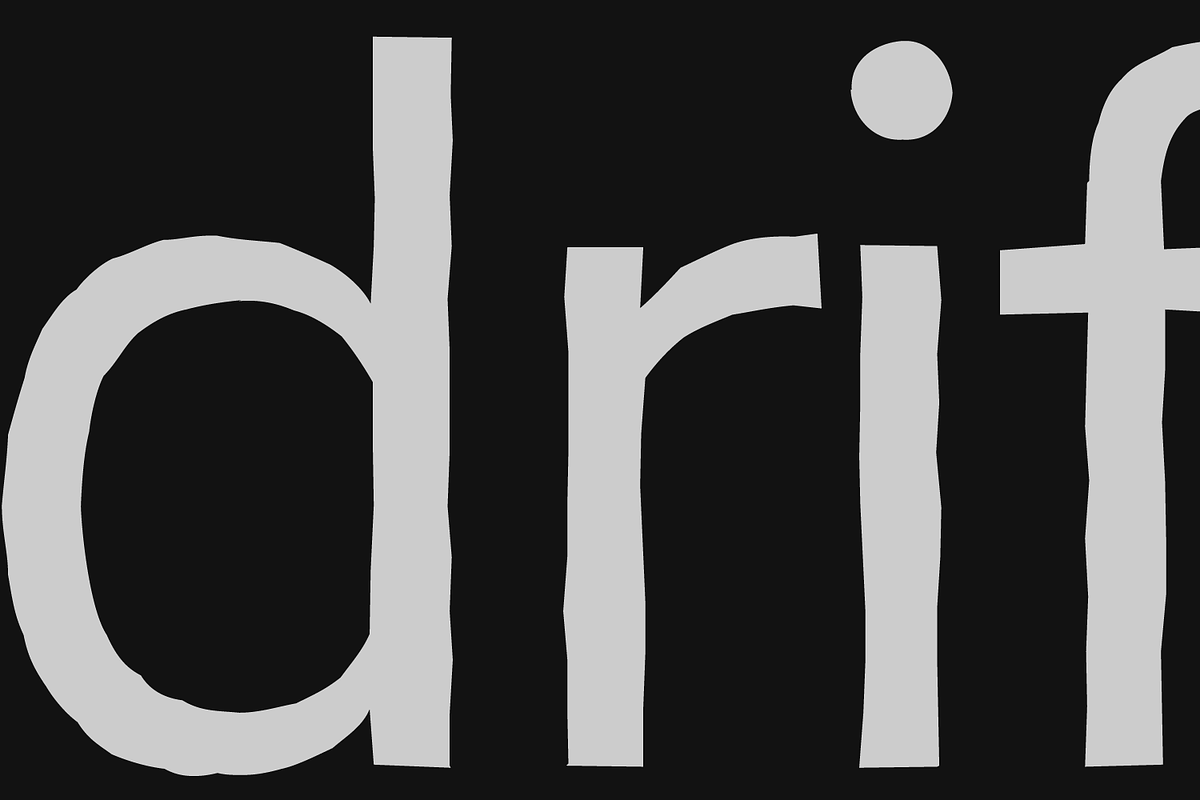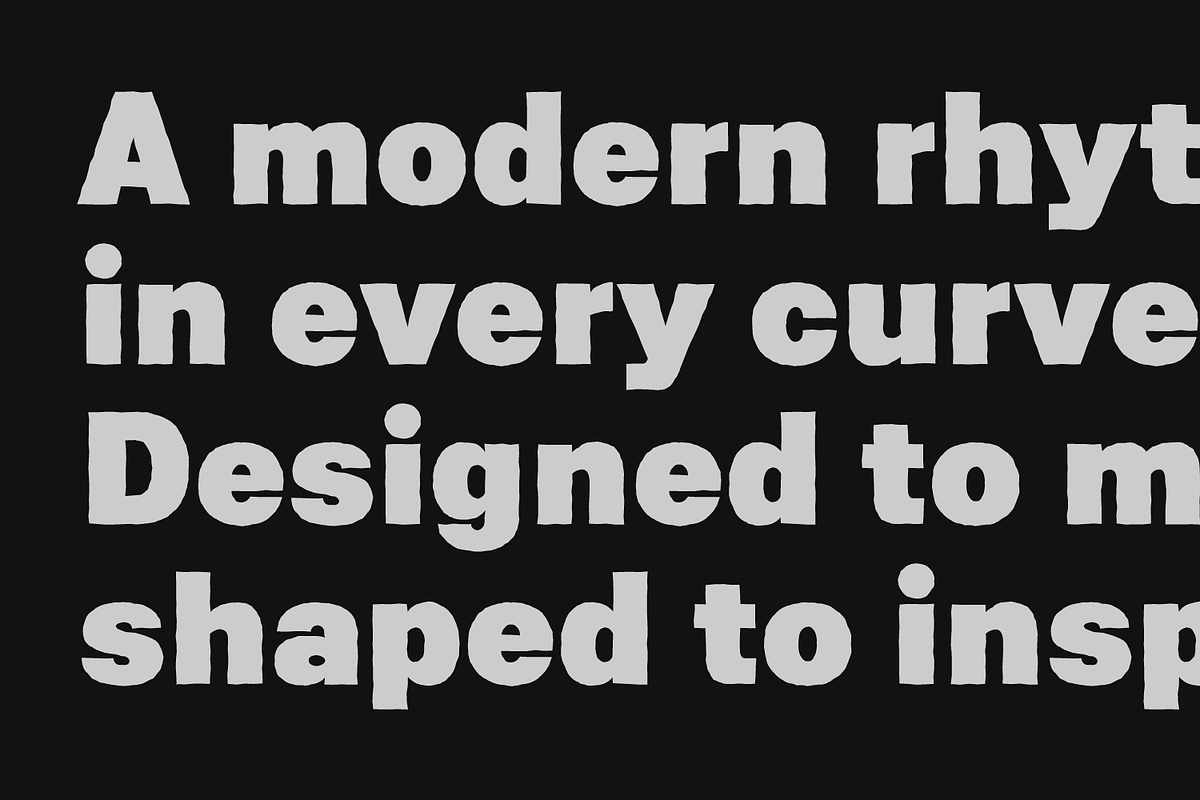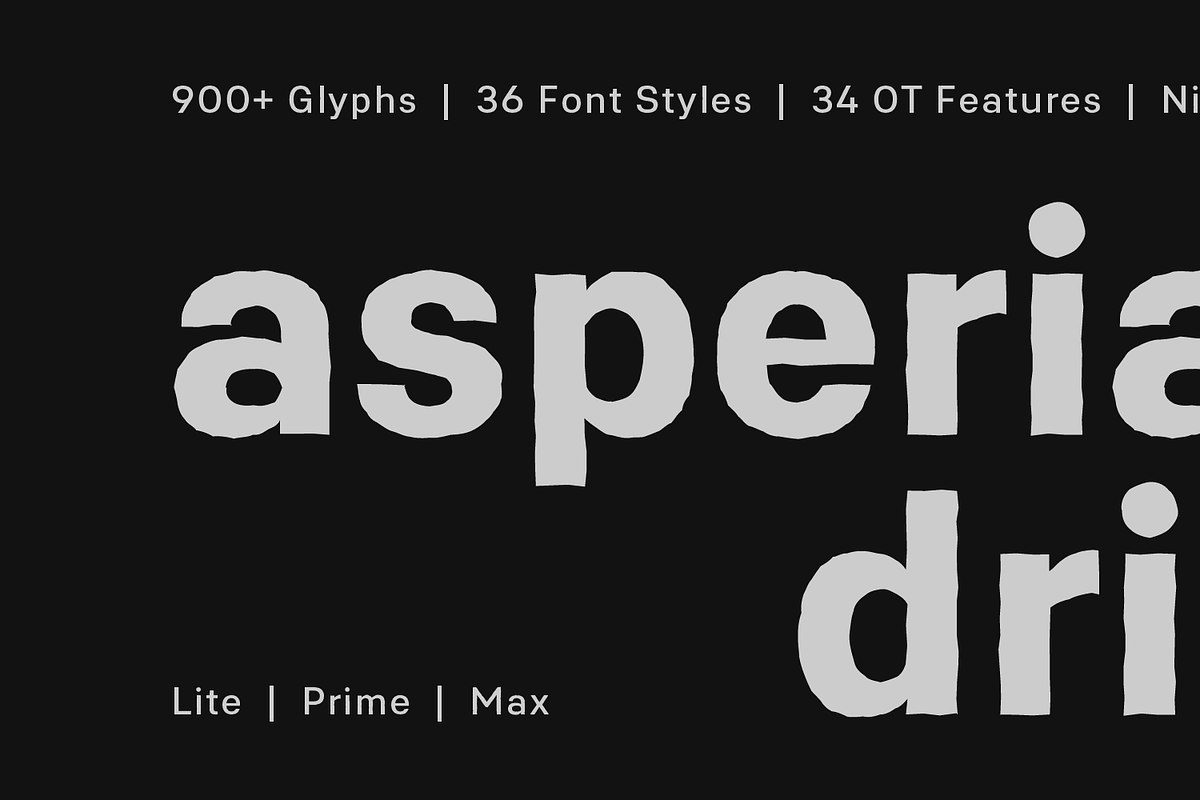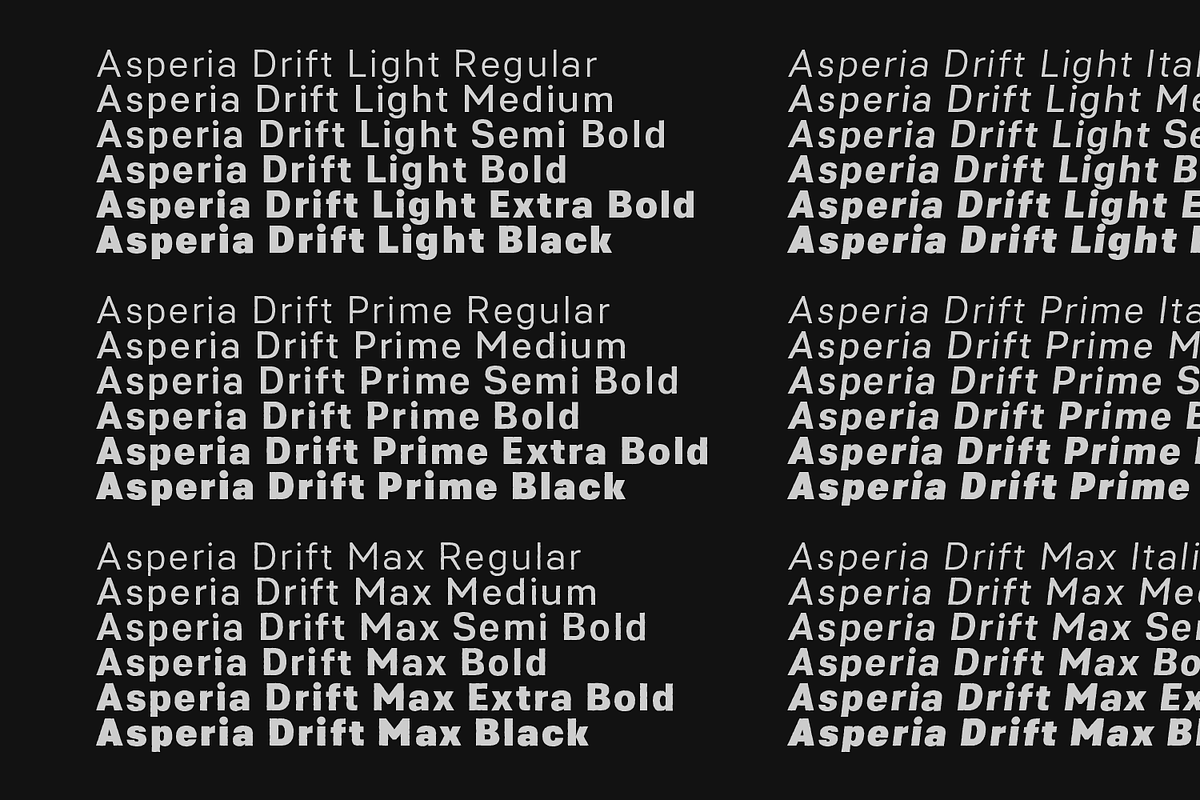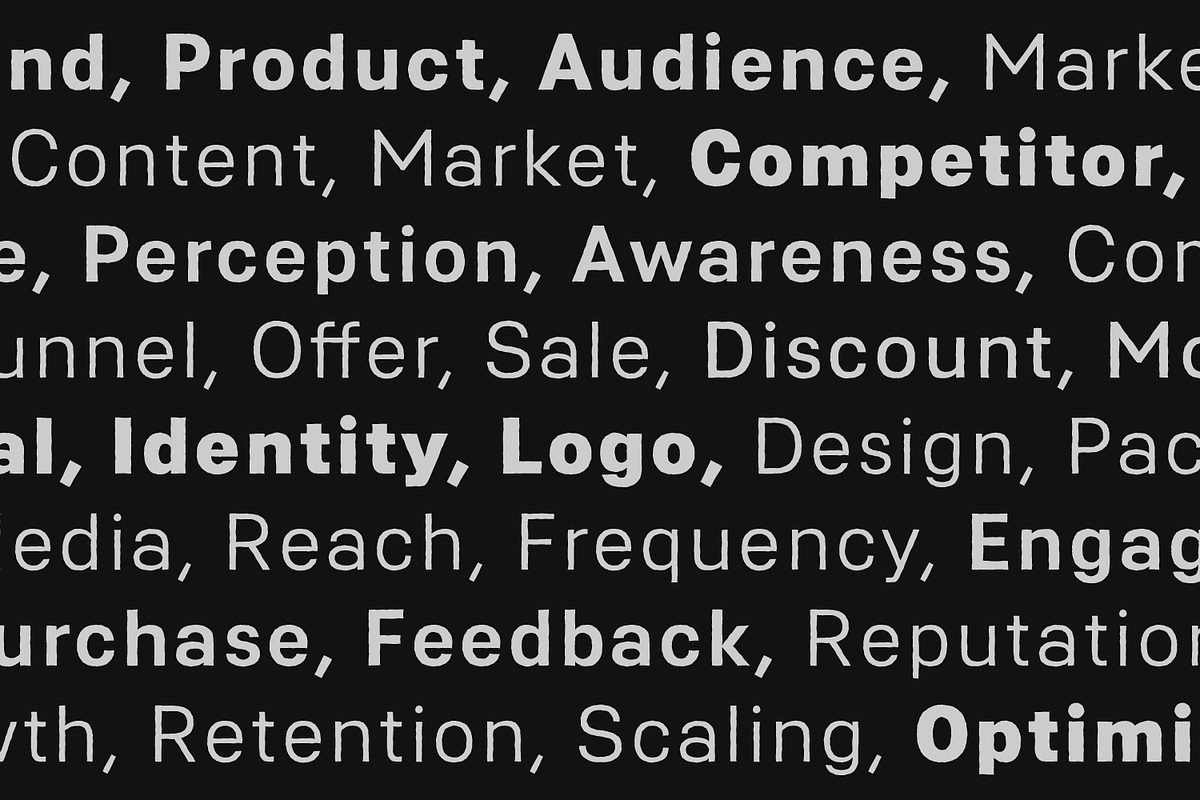
Asperia Drift
Asperia Drift is a modern sans serif with a raw, irregular edge. Instead of perfect geometry, it embraces distortion and tension — every curve feels slightly off, every line carries a touch of movement. This subtle imperfection gives the typeface a distinct, human energy that feels alive and contemporary. Perfect for branding, posters, packaging, and digital projects that demand individuality, Asperia Drift turns precision into personality — a modern voice with a fractured rhythm.